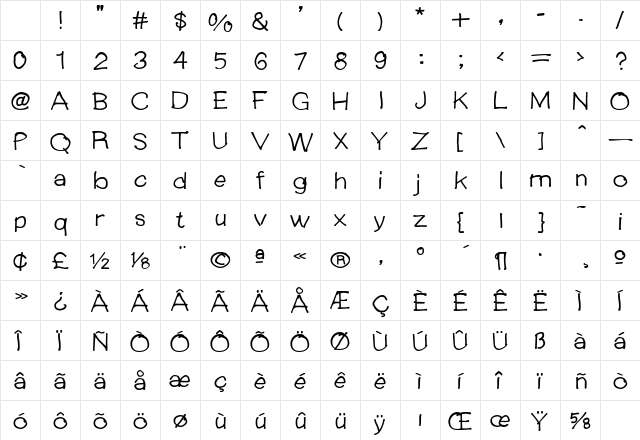
Complete Langer AltRoman glyph index. Displaying only characters natively supported by Langer AltRoman font.
Langer is a composed and adaptable typeface that performs quietly and consistently across a wide range of design contexts.